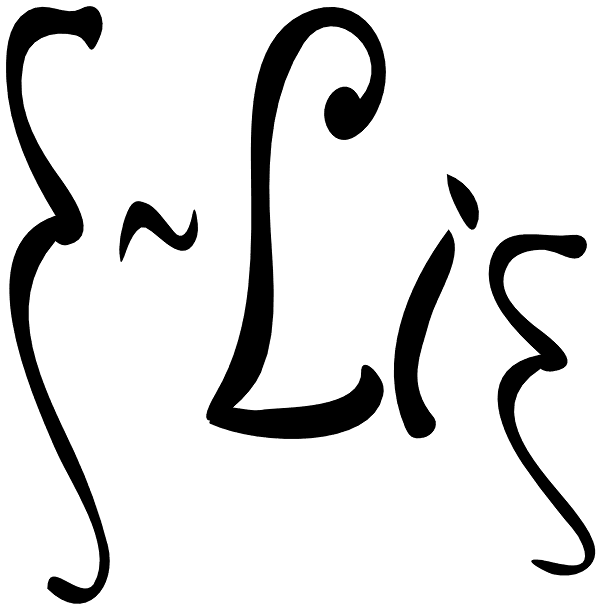
E-Lie
E-Lie is based on the logo for the Portland band E-Lie. Jon Lincicum designed the logo, and then the basic shapes of the principal letters and numbers. He then gave these designs to Shaun Kennedy, who expanded the design, adding punctuation...